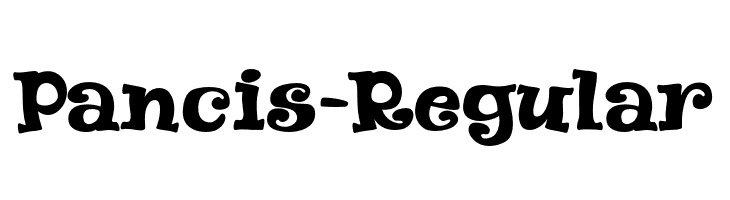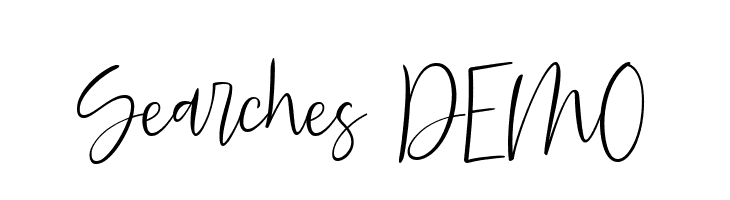
A cursive, handwritten font with elegant, flowing strokes.
A bold, geometric font with a mechanical, futuristic style.
An intricate and decorative monogram font with ornate flourishes.
A thin, handwritten font with elongated strokes and a casual elegance.
A bold, angular blackletter-inspired font with a modern twist.
A bold, brush-style font with a dynamic, handcrafted appearance.
A casual, playful handwritten font with fluid, slightly irregular strokes.
A bold, hand-drawn font with a playful and energetic style.
A dynamic, handwritten cursive font with expressive, fluid strokes.
A lively, flowing script font with elegant cursive letterforms.